Brazilian wood type
Contemporary technologies & traditional workflow.
- Rafael Dietzsch
Although commercially obsolete, printing with wood type has been rescued in contemporary times in the context of graphic design and graphic arts by professionals who use it as a differential in their projects, as Rafael Neder, a Brazilian designer and design educator, observed in his MA dissertation (2014).
This revival is partly due to the fascination with the materiality of letterpress printing, its ancestral history, and the possibility of combining contemporary technologies with the traditional workflow.
Since the Middle Ages, wood has been used in the graphic arts for the making of printing matrices, not only for woodcuts but also for manufacturing wood types. Because of their physical and mechanical properties, wood types were commonly used for large type bodies (usually larger than 48pt). In the 19th century, the use of wood type had its heyday, notably in posters and other printed matter that used large letters. Many of the existing types in collections around the world were produced during that period.
With the availability of today’s digital fabrication techniques such as CNC milling and laser cutting or engraving, it is possible to produce new wood types with repeatable precision. It is also possible to create type with other synthetic materials of better or similar quality, giving new meaning to their manufacture and taking advantage of contemporary industrial processes.
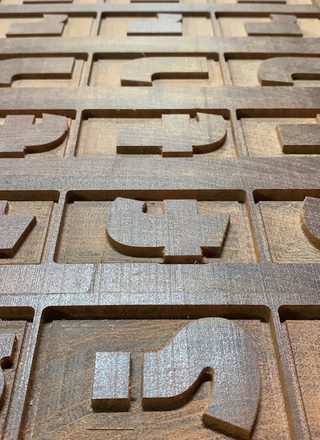
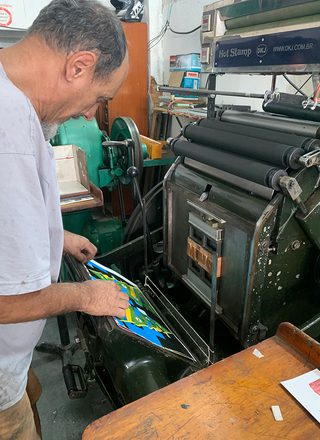
The Brazilian wood type project
This idea formed the basis idea for a 2017 research group on wood type initially formed by Rafael Neder, Rafael Dietzsch, and Leonardo Buggy. The first efforts of this group resulted in a study on the characterisation of wood type by a network of three Brazilian universities and the Brazilian Forestry Service. The group started with the intention to produce new wood typefaces for use in contemporary letterpress practice. However, species such as maple, oak, and pine are exotic to South America, leading to the hypothesis that local species were used for Brazilian wood type throughout the 20th century. Since no wood type factories survived and little has been written about the topic, we turned our attention to primary sources.
With the help of enthusiasts around the country, examples of Brazilian wood types were collected and examined by researchers at Forest Products Laboratory: Alexandre Gontijo, Thiago Oliveira Rodrigues, and Maria Luiza Costa Silva. Tests included microscopic images, prototyping and printing tests, and testing for resistance, torsion, and flexibility.
The laboratory analysis confirmed the hypothesis: microscopic images and anatomic comparison of eight native and a couple of exotic species were used to make type in the region. This analysis allowed the identification of alternative native species with similar properties for the making of our prototypes, and obtaining printed tests from these materials. Furthermore, this initial study also evaluated the first wood types produced with the suggested Brazilian native woods, as well as some results obtained from these printed tests, as shown in the presentation at the ATypI conference in Antwerp, 2018.
The Brazilian Forest Service runs a unique forest concessions program where logging companies are allowed to harvest timber on public land, but under such strict rules—like only a few trees per hectare over decades—that it actually discourages illegal deforestation by giving businesses a financial incentive to keep the forest standing.
Back to the woods
After this presentation, Veronika Burian of TypeTogether type foundry showed interest in the project. She mentioned that she was working on a project that had a lot to do with wood type and about her wish to see that project cut in wood. Time passed and in 2020 José Scaglione got in touch with us inquiring about the possibility of cutting a version of TypeTogether’s Catalpa typeface in wood.
This is when Nícolas Loiola Camargo, a brilliant designer and skilled carpenter, joined the project. For his postgrad degree project at SENAC, São Paulo, he developed the Ibirapitanga type family, from its inception as a digital font to its materialisation as wood type. With Nícolas aboard, the group joined forces to produce the third generation of wood types.
The final result is a wood type version of Catalpa Extrabold. The font contains more than 400 characters: uppercase and lowercase letters, numerals, a basic set of symbols and punctuation marks, and some accented characters. With this character set it is possible to compose texts in Portuguese, Spanish, or English.
The project would not be complete without the development of a printed specimen — a poster (colourway one and colourway two). The idea for the poster was to work with something related to wood, trees, and forests. After all, Catalpa is also the name of a tree. The fragment of the text used on the poster, The stronger the wind, the stronger the trees, comes from the poem “Good timber” by American poet Douglas Malloch.
After some digital layout tests, the famous type designer Cláudio Rocha made some prints with the actual types. We unfortunately realised many of the characters needed to be replaced due to a host of reasons: milling and finishing problems, baseline alignment, damaged sorts, and other issues. Once we corrected the hands-on difficulties of dealing with wood type and were more careful in the production process, Rafael Neder printed the final version of the poster at Tipografia Matias print shop in Belo Horizonte, Brazil with the help of the master printer himself, Ademir Matias.
Ibirapitanga Studio, created by Nícolas Loiola Camargo, bridges typography, craftsmanship, and sustainability by transforming a digital font family into physical wood type letters carved from native Brazilian wood species. Developed in collaboration with the Brazilian Forestry Service, the project identifies local woods as sustainable alternatives to traditional imported timber for letterpress printing. By combining digital fabrication techniques like CNC milling with the nearly lost heritage of Brazilian wood type manufacture, the studio offers a model for preserving craft while promoting the sustainable use of the country's forest resources.